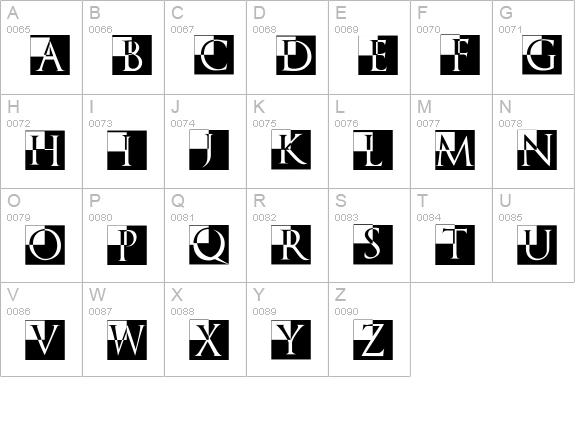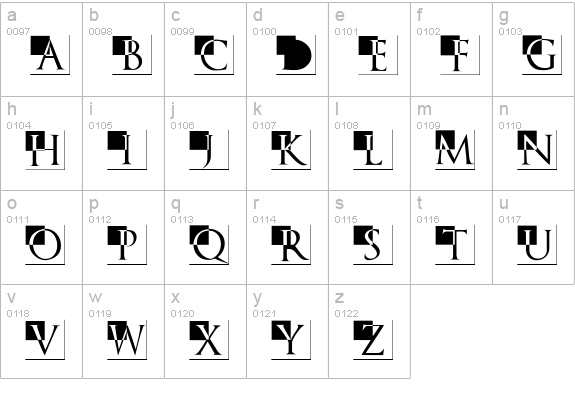
TrajanusBricksXtra Font Details
Introducing TrajanusBricksXtra, a captivating and versatile font that will elevate your design projects to new heights. This typeface effortlessly combines elegance and strength, making it perfect for a wide range of applications. Crafted with meticulous attention to detail, TrajanusBricksXtra features a unique blend of bold and refined letterforms. Its clean lines and balanced proportions create a timeless aesthetic that is both modern and classic. Whether you're designing a logo, a poster, or a website, this font will add a touch of sophistication and professionalism to your work. One of the outstanding features of TrajanusBricksXtra is its versatility. It can be easily adapted to fit any design concept, from sleek and minimalistic to bold and expressive. With its extensive character set, including uppercase and lowercase letters, numerals, punctuation marks, and special symbols, you have the freedom to create eye-catching compositions that truly stand out. But that's not all – TrajanusBricksXtra is not only an exceptional font, but it is also freely available to download at FontsMarket.com. Yes, you read that right! You can enhance your creative projects with this remarkable font without spending a dime. FontsMarket.com offers an extensive collection of high-quality fonts, and TrajanusBricksXtra is just one of the many treasures waiting to be discovered. So don't miss out on the opportunity to elevate your designs with TrajanusBricksXtra. Download this free font today and unlock a world of creative possibilities. Let your imagination run wild and watch as your designs come to life with the captivating charm of TrajanusBricksXtra.